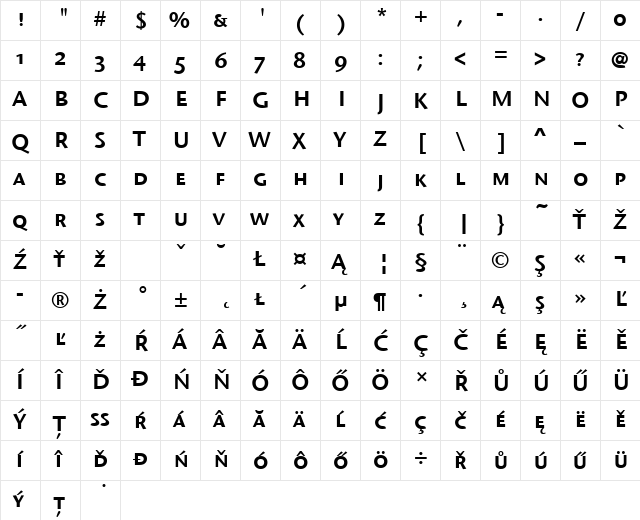
StoneSanSCItcTEESem Regular Font Preview
StoneSanSCItcTEESem Regular
Design Context for StoneSanSCItcTEESem Typeface
StoneSanSCItcTEESem takes a measured approach to typography — its balanced proportions and neutral character make it a reliable workhorse for both digital and print work.